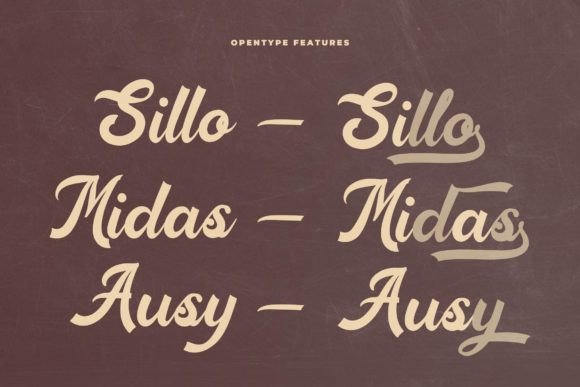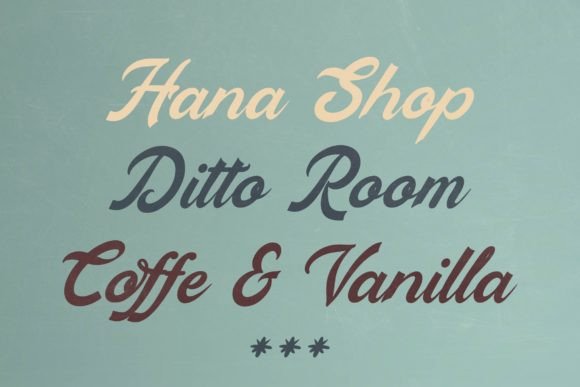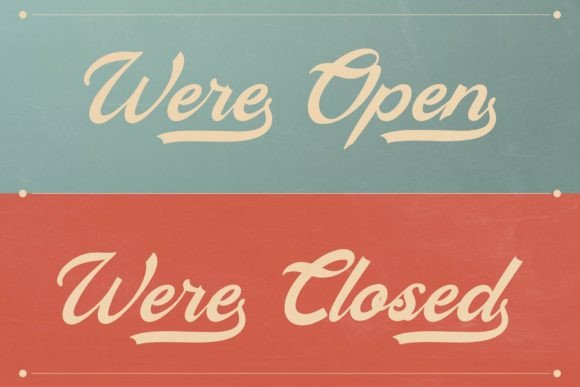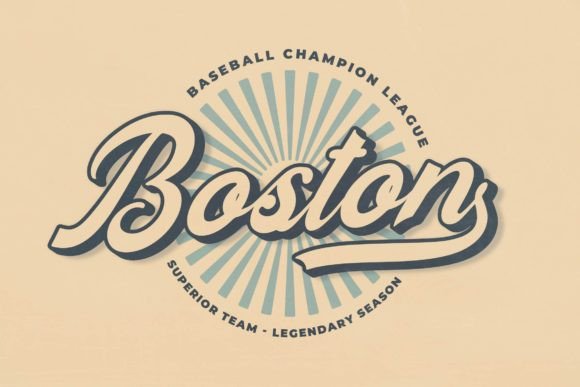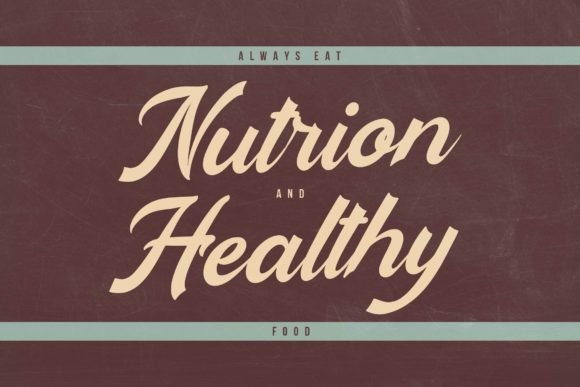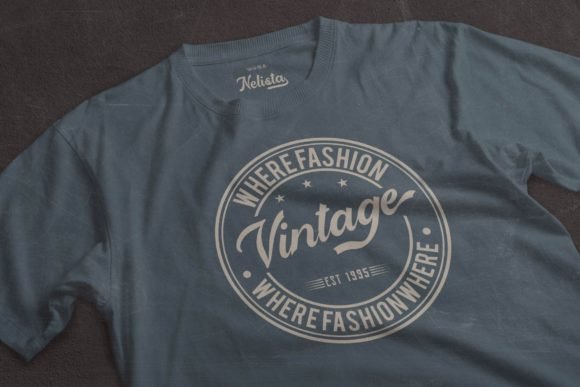
Baby Nelista Font: The Ultimate Retro-Style Script for Your Creative Projects
Are you a designer or crafter looking for a unique and eye-catching font to add a touch of retro charm to your projects? Look no further than the Baby Nelista Font! This fun and playful retro-style script font is perfect for creating posters, logos, and other designs that need a nostalgic vibe.
What is Baby Nelista Font?
Baby Nelista is a curvy, bold script font that feels vintage, like old signs or ads. The letters flow smoothly, making it great for creating designs that need a touch of retro charm. With its smooth lines and playful curves, Baby Nelista Font is sure to add a unique and eye-catching element to any project.
Key Features of Baby Nelista Font
- Retro-style script font: Baby Nelista Font has a classic, vintage feel that’s perfect for creating designs with a nostalgic vibe.
- Curvy and bold design: The font’s curvy, bold design makes it perfect for creating eye-catching designs that stand out.
- Smooth lettering: The letters in Baby Nelista Font flow smoothly, making it easy to read and perfect for use in a variety of designs.
- Vintage feel: The font’s vintage feel makes it perfect for creating designs that need a touch of nostalgia, such as posters, logos, and advertisements.
Uses for Baby Nelista Font
Baby Nelista Font is a versatile font that can be used in a variety of creative projects, including:
- Posters: Add a touch of retro charm to your posters with Baby Nelista Font.
- Logos: Create a unique and eye-catching logo with Baby Nelista Font.
- Advertisements: Use Baby Nelista Font to add a vintage feel to your advertisements.
- Crafting projects: Add a personal touch to your crafting projects, such as scrapbooking and card making, with Baby Nelista Font.
Why Choose Baby Nelista Font?
There are many reasons to choose Baby Nelista Font for your creative projects. Here are just a few:
- Unique and eye-catching: Baby Nelista Font is a unique and eye-catching font that’s sure to add a touch of personality to your designs.
- Easy to read: The font’s smooth lettering makes it easy to read, even at small sizes.
- Versatile: Baby Nelista Font can be used in a variety of creative projects, from posters and logos to crafting projects.
- Retro charm: The font’s vintage feel makes it perfect for creating designs with a nostalgic vibe.
Tips for Using Baby Nelista Font
Here are a few tips for using Baby Nelista Font in your creative projects:
- Use it sparingly: Baby Nelista Font is a bold font, so use it sparingly to add emphasis to your designs.
- Pair it with other fonts: Pair Baby Nelista Font with other fonts to create a unique and eye-catching design.
- Experiment with colors: Experiment with different colors to find the perfect combination for your design.
Baby Nelista Font is a fun and playful retro-style script font that’s perfect for adding a touch of retro charm to your creative projects. With its curvy, bold design and smooth lettering, Baby Nelista Font is sure to add a unique and eye-catching element to any design. Whether you’re a designer or crafter, Baby Nelista Font is a great choice for any project that needs a nostalgic vibe.